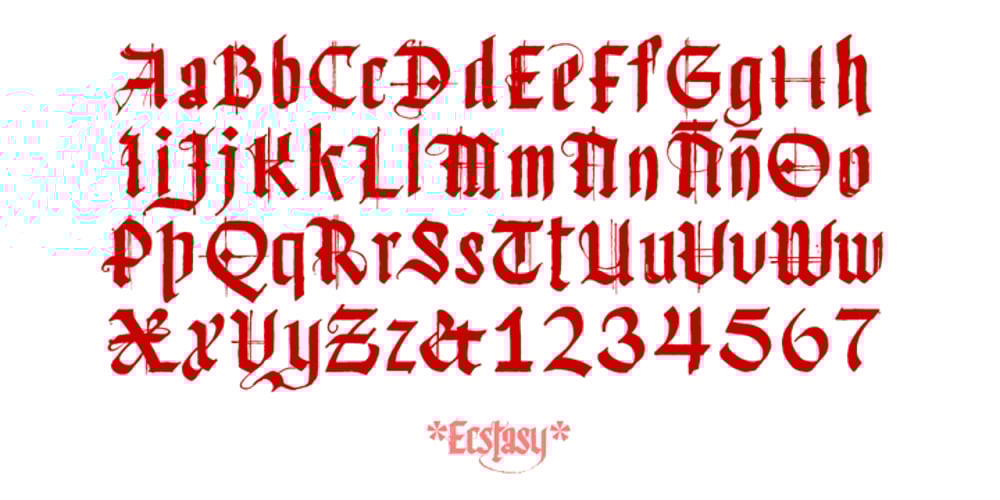
Ecstasy
Ecstasy font
Ecstasy Font Family was designed by Jesus Barrientos and published by Talavera. Ecstasy contains 1 styles and family package options. This calligraphic type is based on a free-styled blackletter with an ink-stained spirit. By having several stylistic alternates (on both U&lc.) plus some non standard ligatures, your text may look like it’s written or handmade! You should combine this font with Agony, also available on MyFonts.